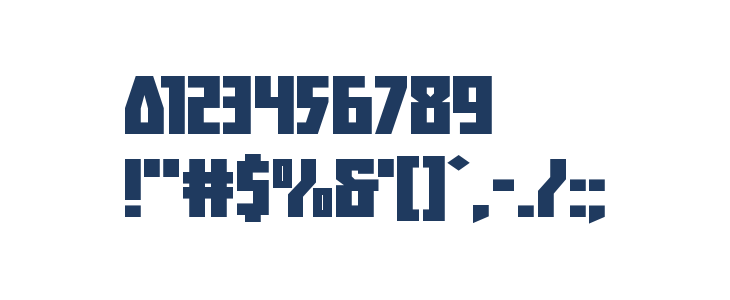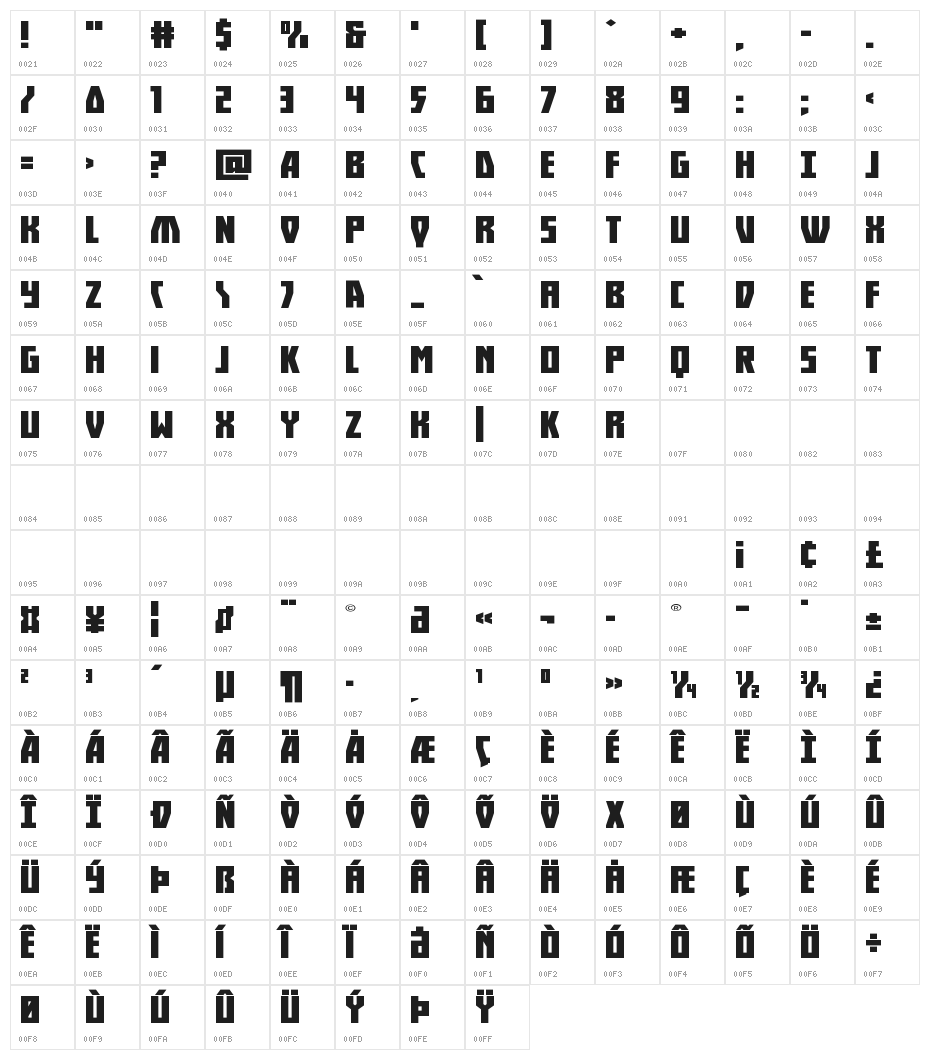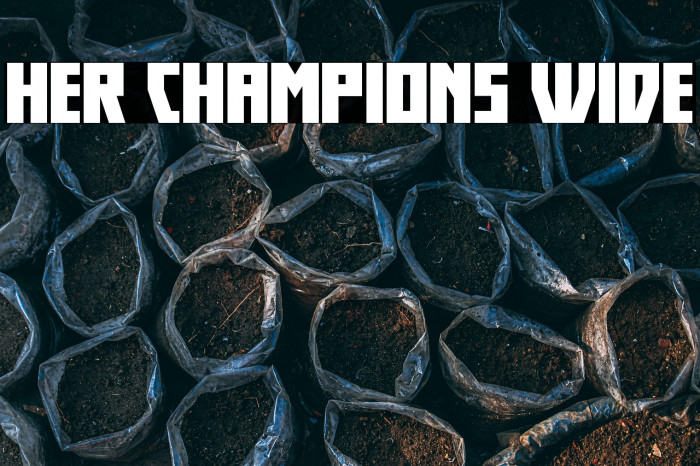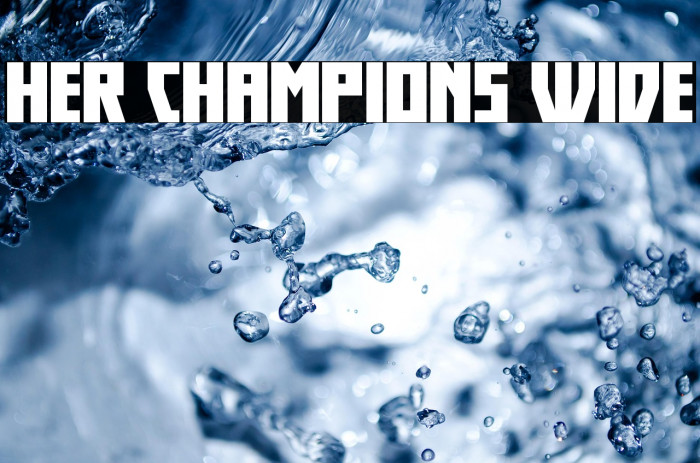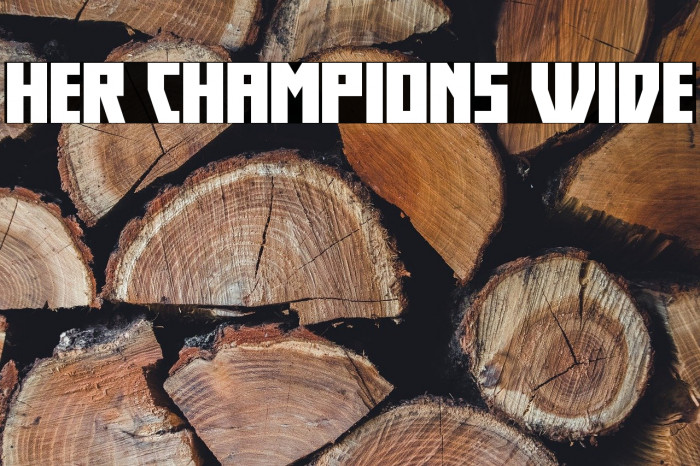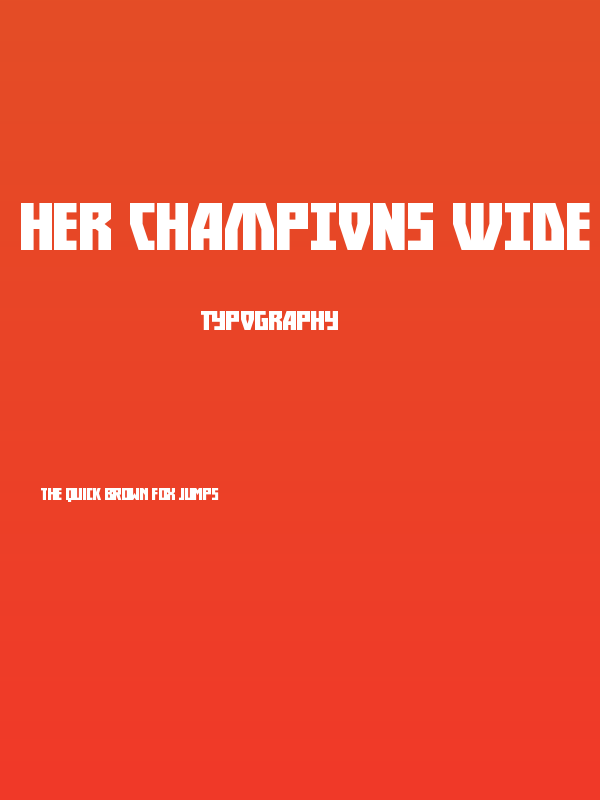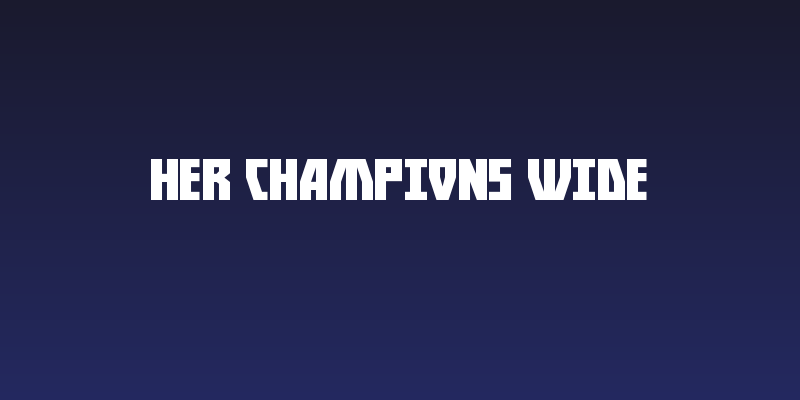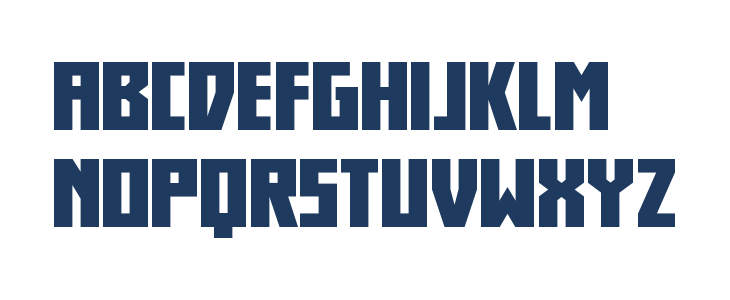
Her Champions Wide Font
Her Champions Wide Description
This font features a bold, geometric design with a strong presence. The characters are wide and blocky, with sharp angles and a uniform thickness throughout. The uppercase letters are particularly striking, with a futuristic and industrial feel. The numbers and special characters maintain the same bold style, ensuring consistency across all elements. This font is highly legible and commands attention, making it ideal for impactful designs.
| Overall Style | Modern, Industrial |
| Proposed Projects | Ideal for sports branding, posters, headlines, and any project requiring a strong, impactful typeface. |